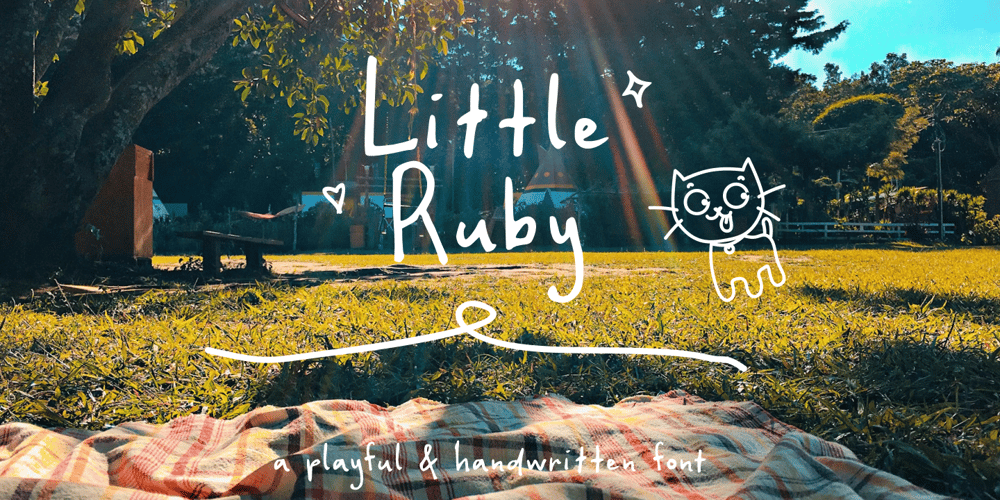
Little Ruby Font Family was designed by Risca Anitawati and published by Reyrey Blue Std. Little Ruby contains 1 styles and family package options. Introducing Little Ruby. It is a cute, playful handwritten font with a refreshing and vibrant aesthetic.This type of font is perfectly made to be applied especially in logos, headlines, signage, and other various formal forms such as invitations, labels, logos, magazines, books, greeting/wedding cards, packaging, fashion, makeup, stationery, novels, labels, or any advertising purpose. This product was created to help you make your digital images even more beautiful and unique.